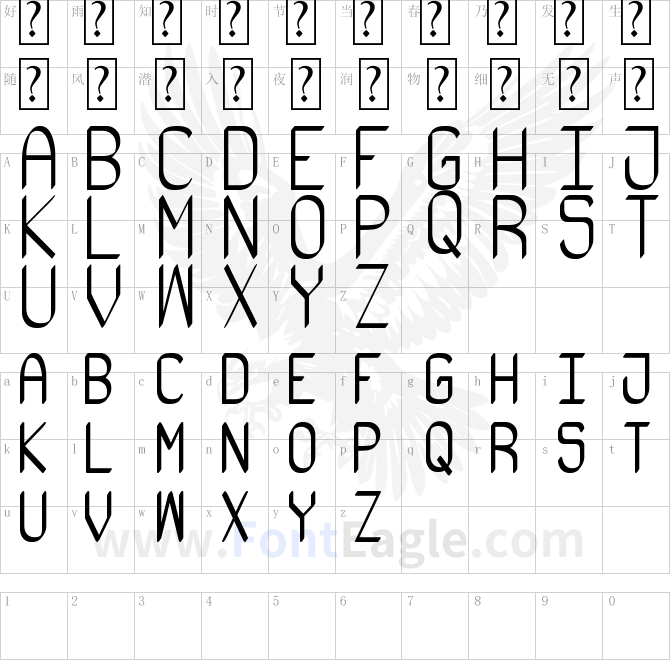
Stupenda-ST is a great font, widely used in graphic design, single-page menu design, poster design and other fields, and is deeply loved by designers.Stupenda-ST download.